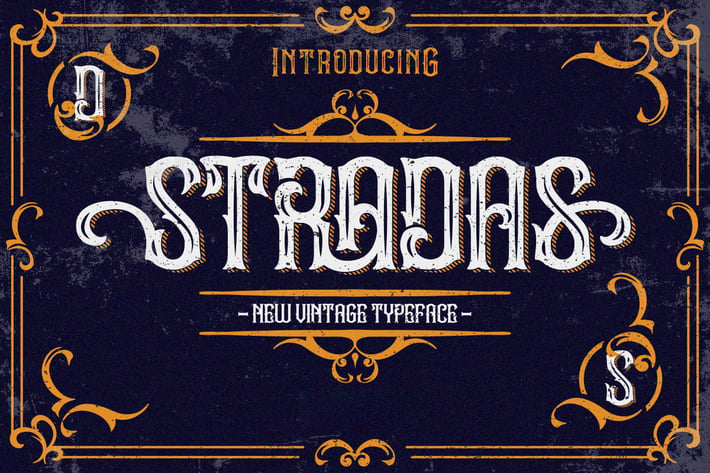
Stradas Display Font
Stradas is amazing display font. The font is suitable for any project like branding , lettering , tshirt print and may others.
- Accents (Multilingual characters)
- 9 Ligatures
- 78 Alternates and swashes
- Features in Solid, Outline, Inline and Shadow Version
- Bonus Ornament